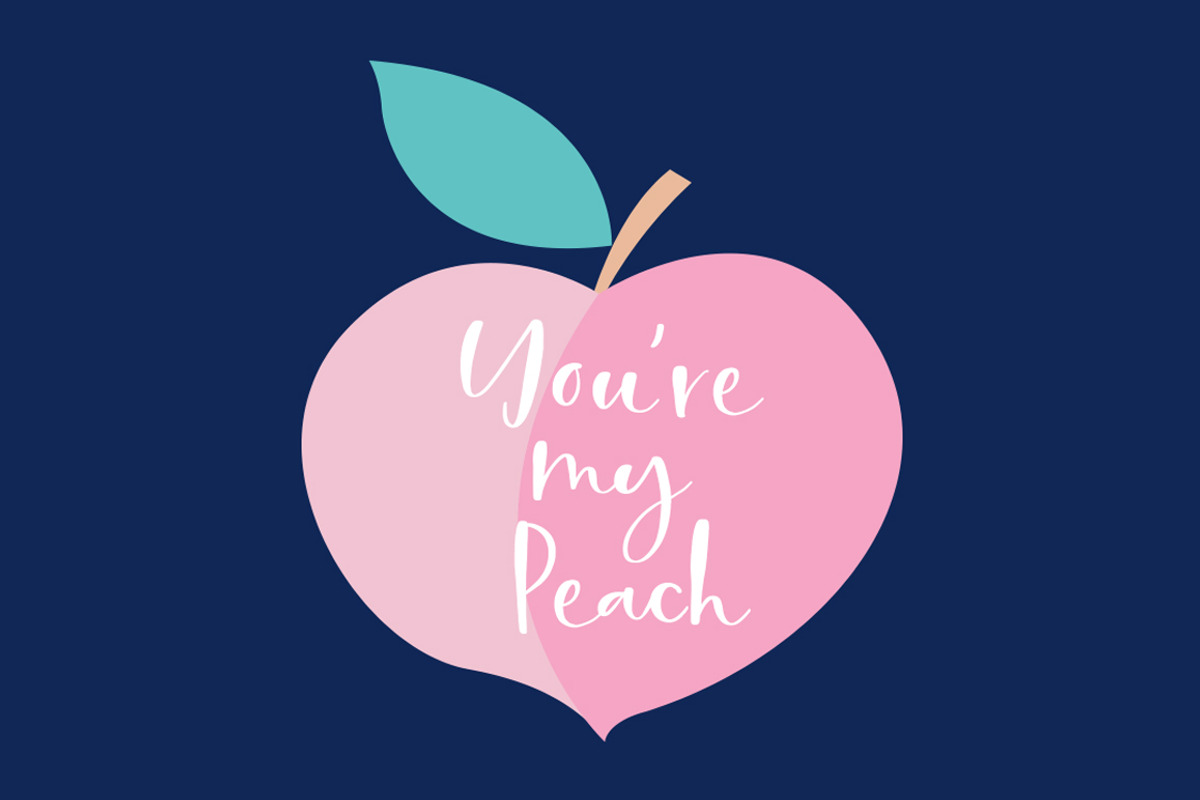
Calla Script
Calla is a scripted typeface with an interesting personality. Each letter was created many times so you can get a truly distinctive look to your designs. Notice when you type with open type feature switched on, your letters will bounce around and change as you type? This feature ensures you get a new version of each letter throughout the words you use! Want to get even more custom? Pair all caps words with your lowercase words to create hierarchy!